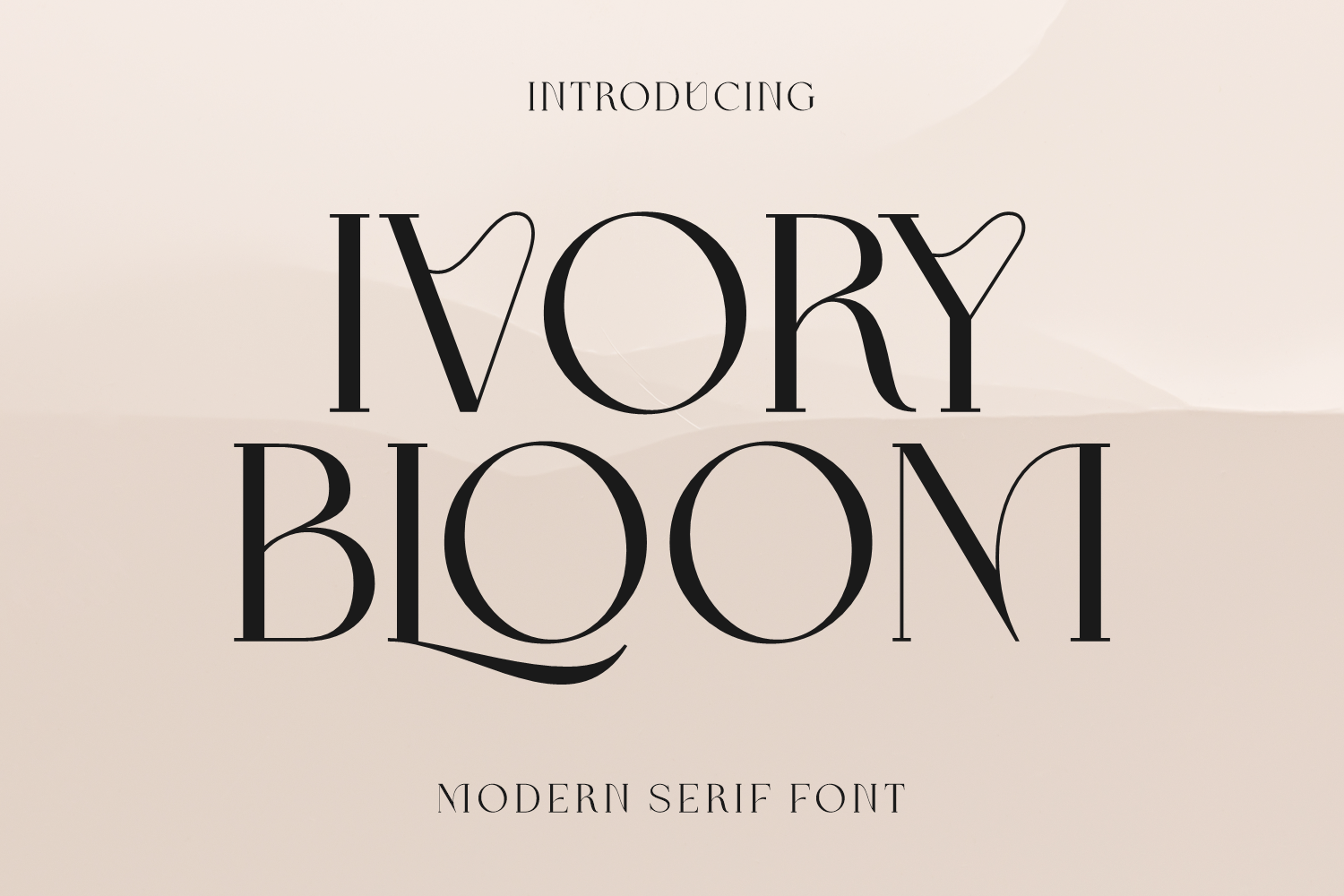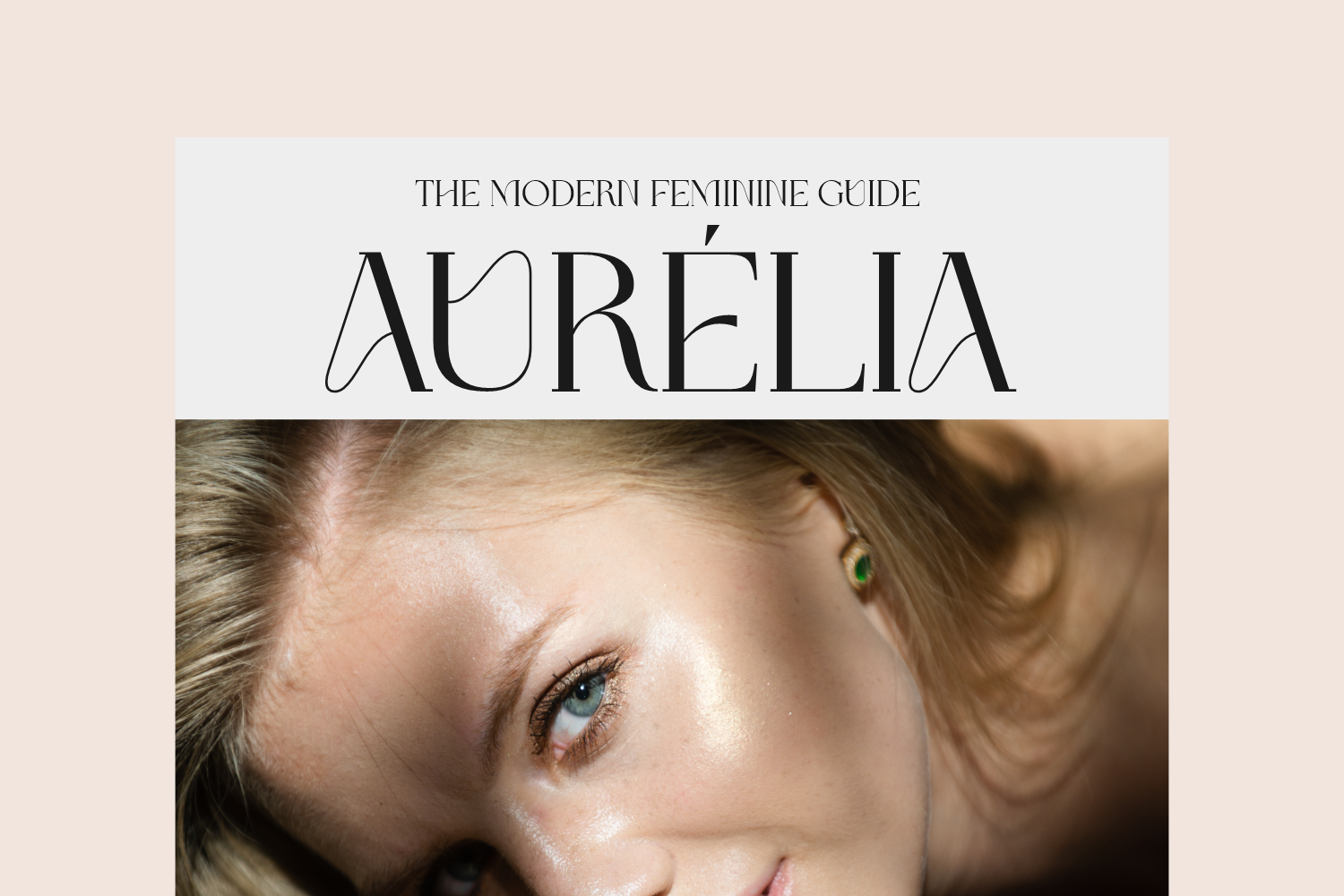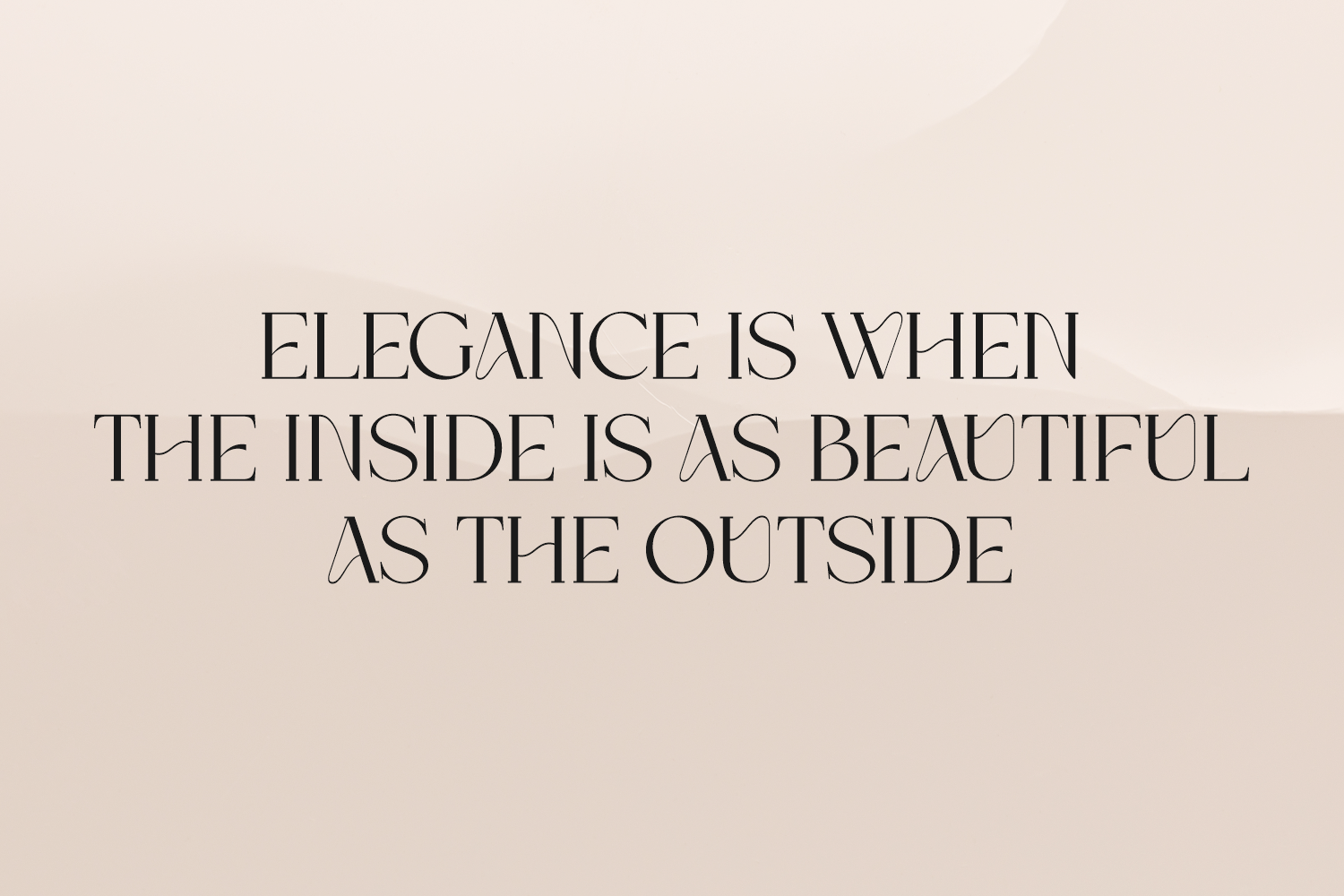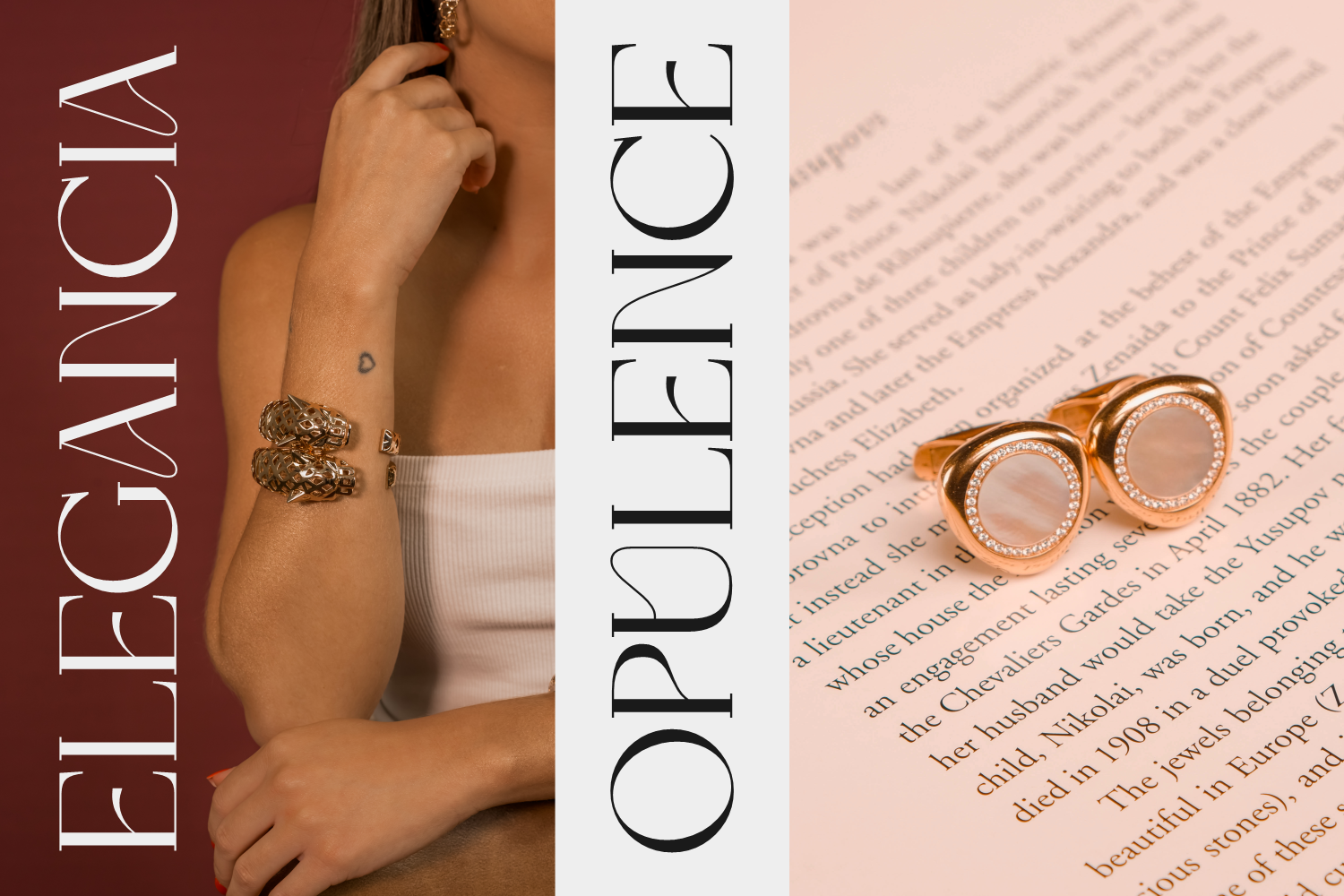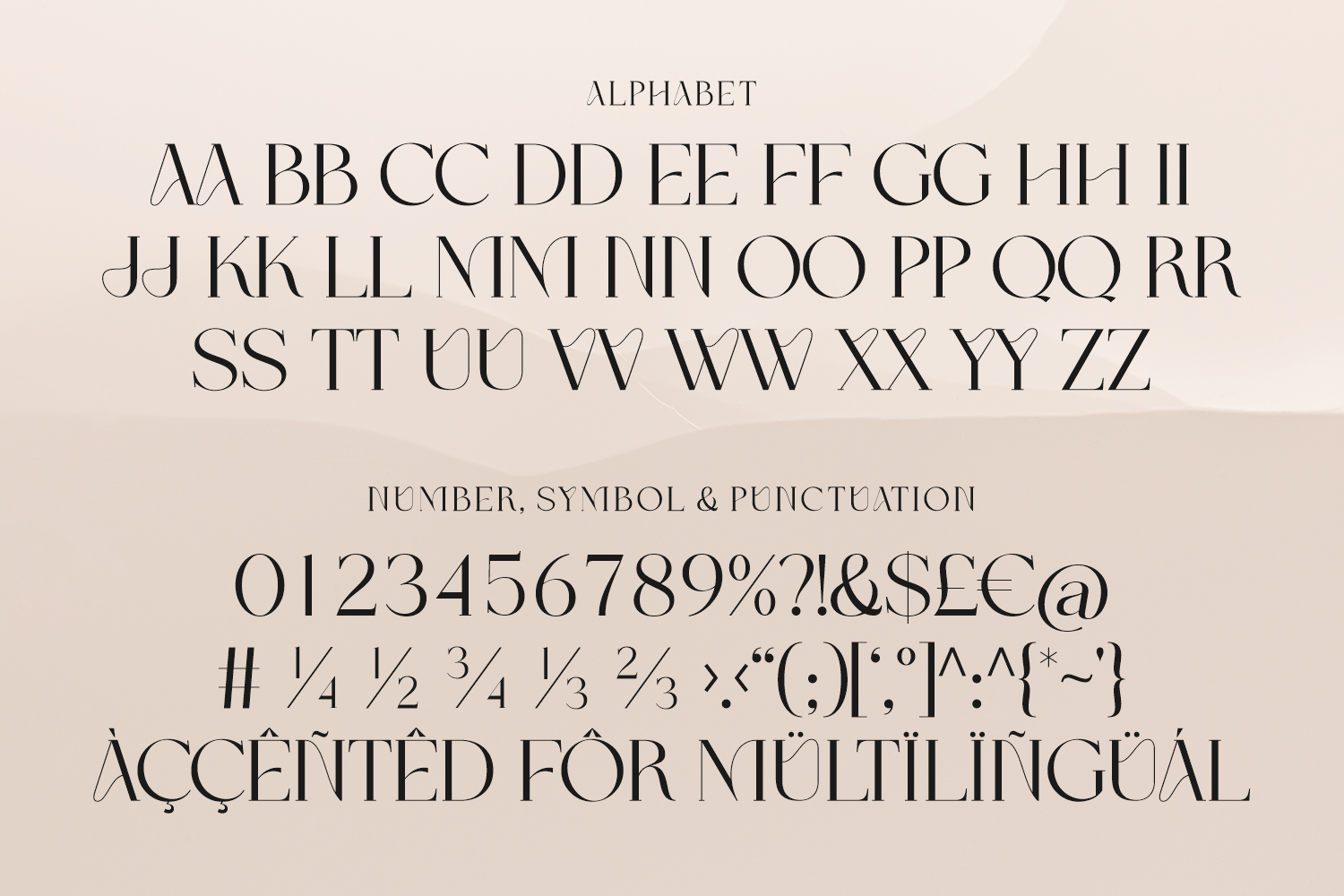
Ivory Bloom is a refined serif typeface with graceful letterforms and creative flourishes. Its high-contrast strokes and unique shapes are perfect for fashion labels, invitations, and elegant editorial titles.